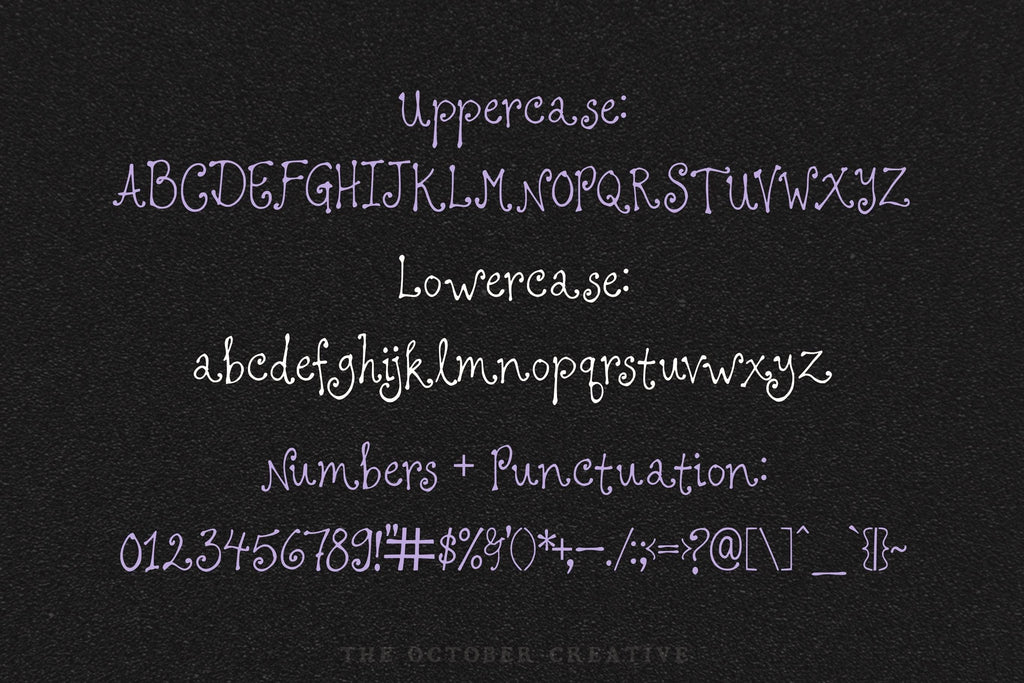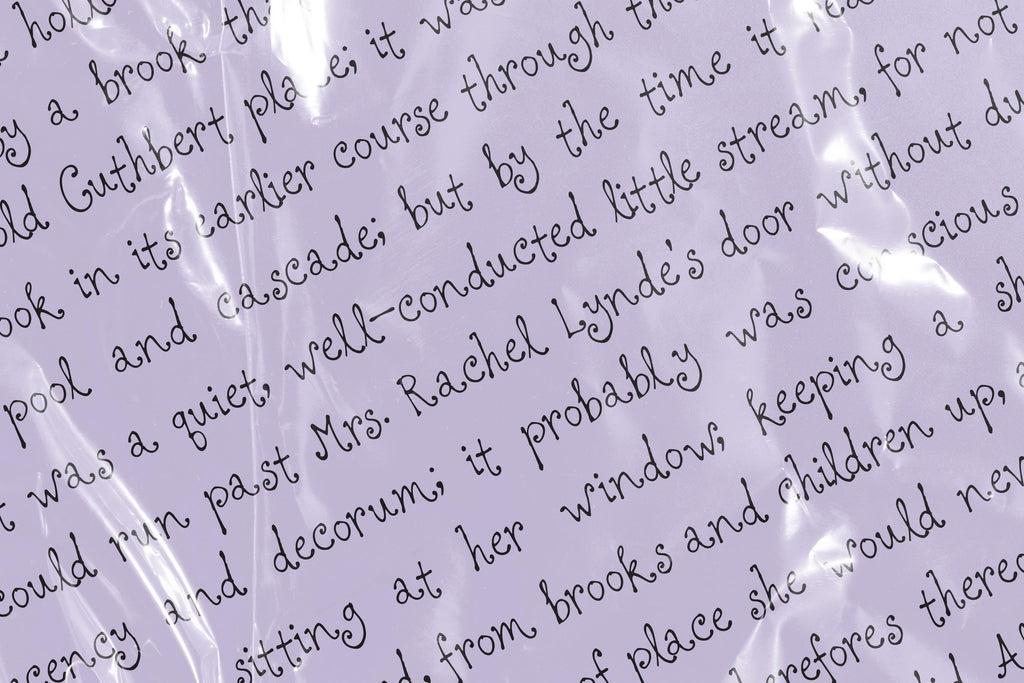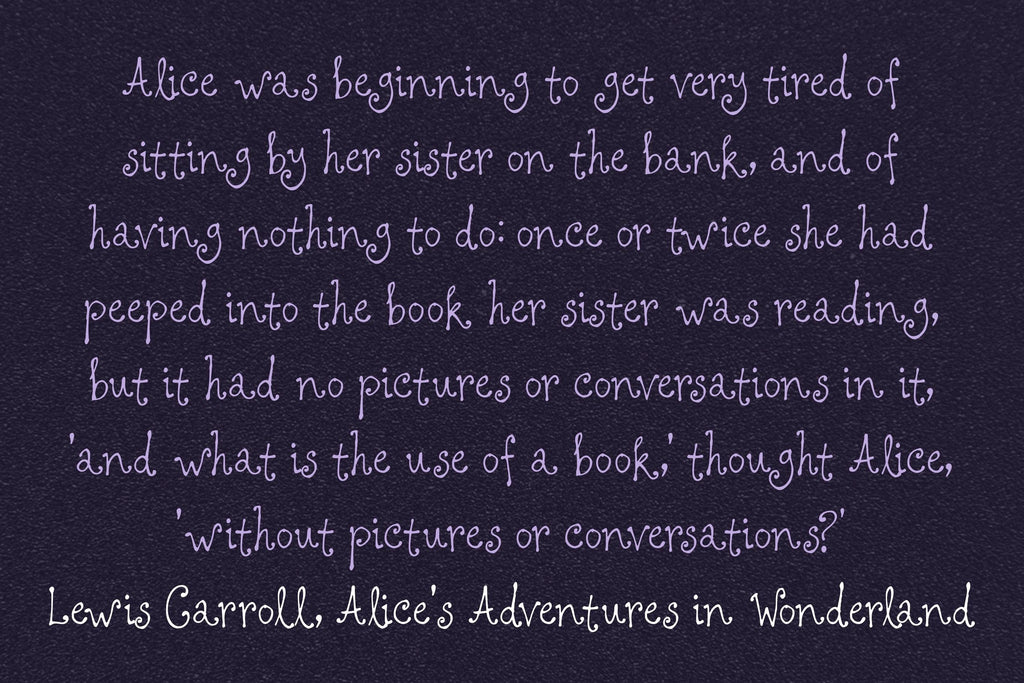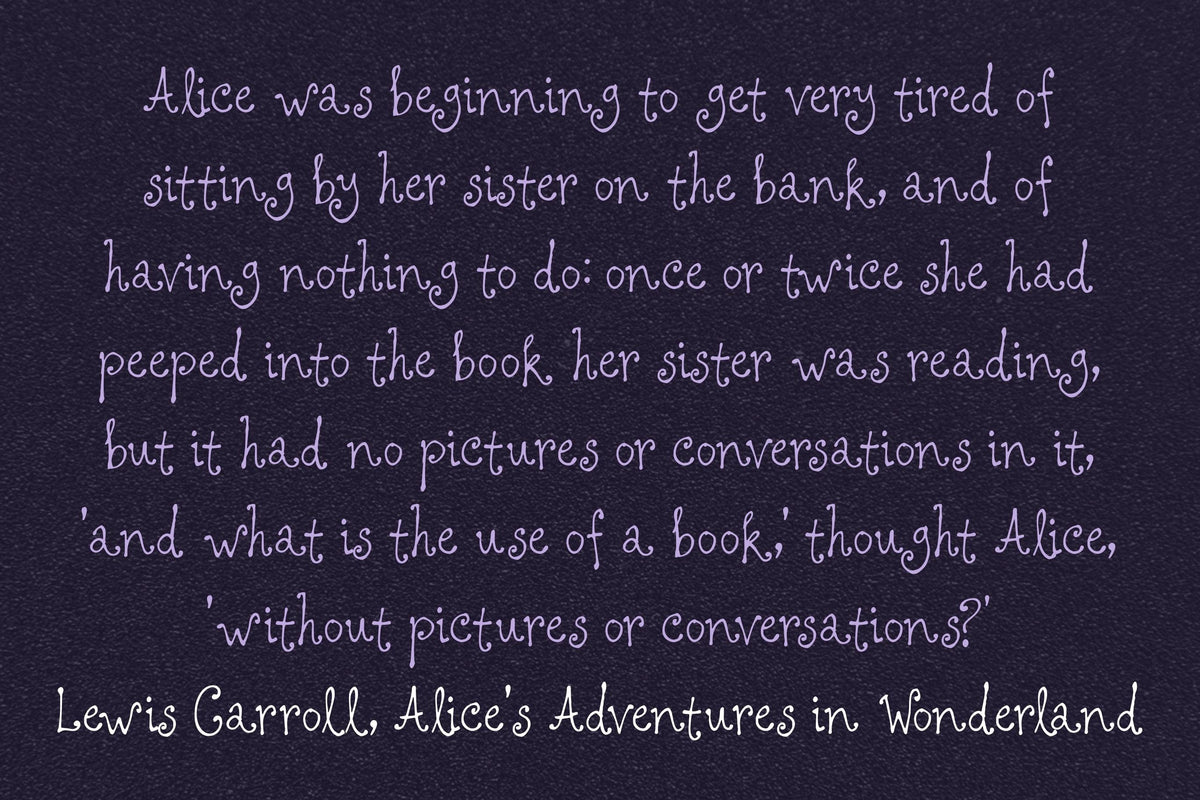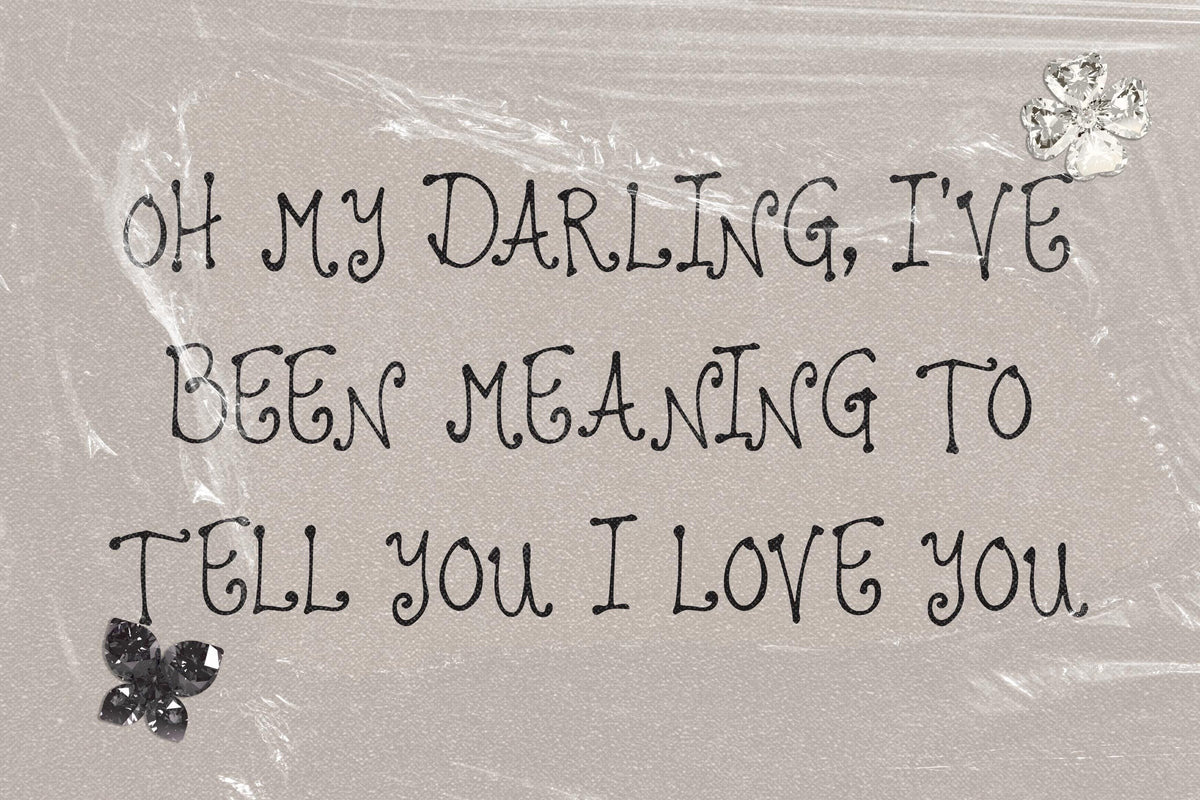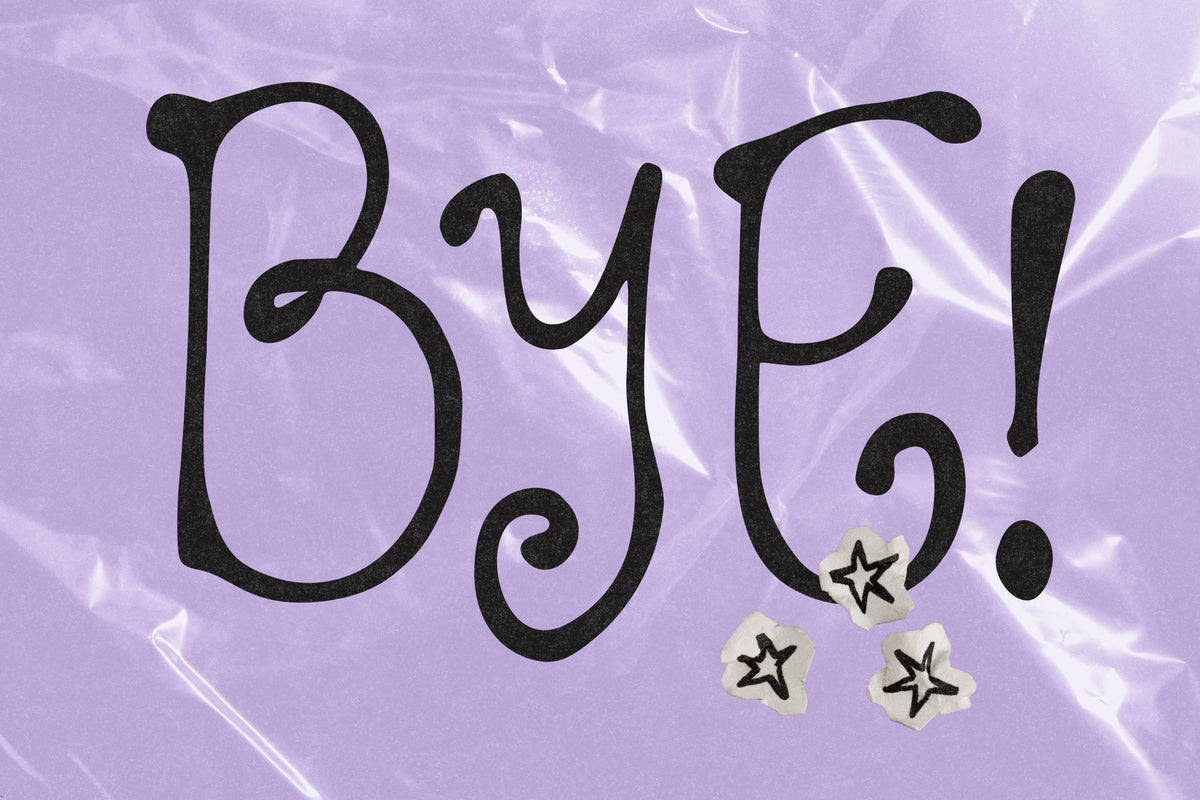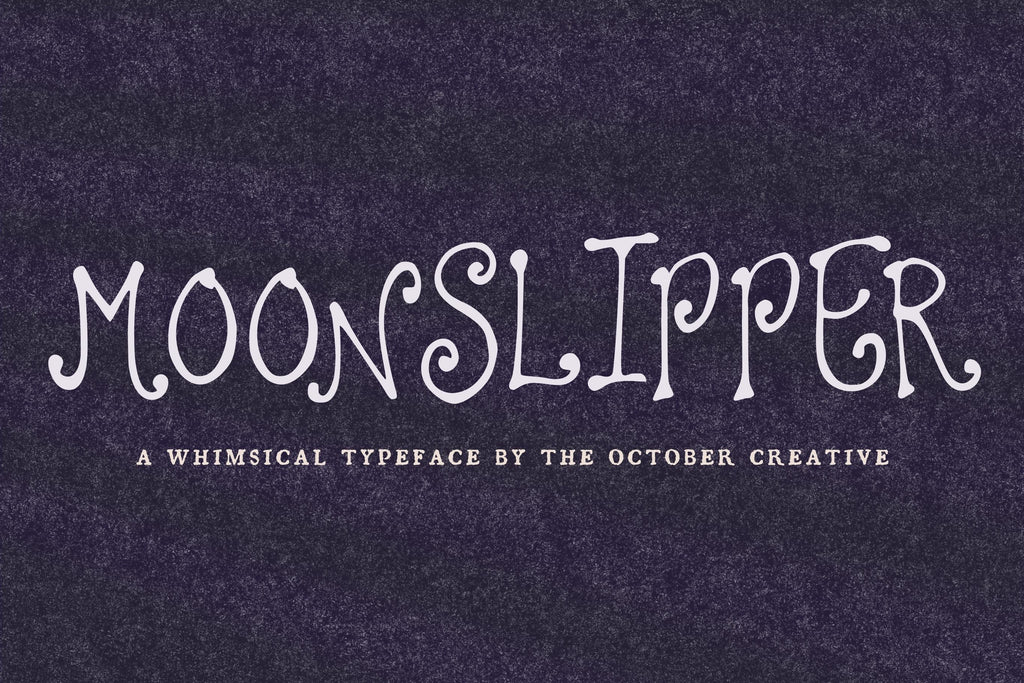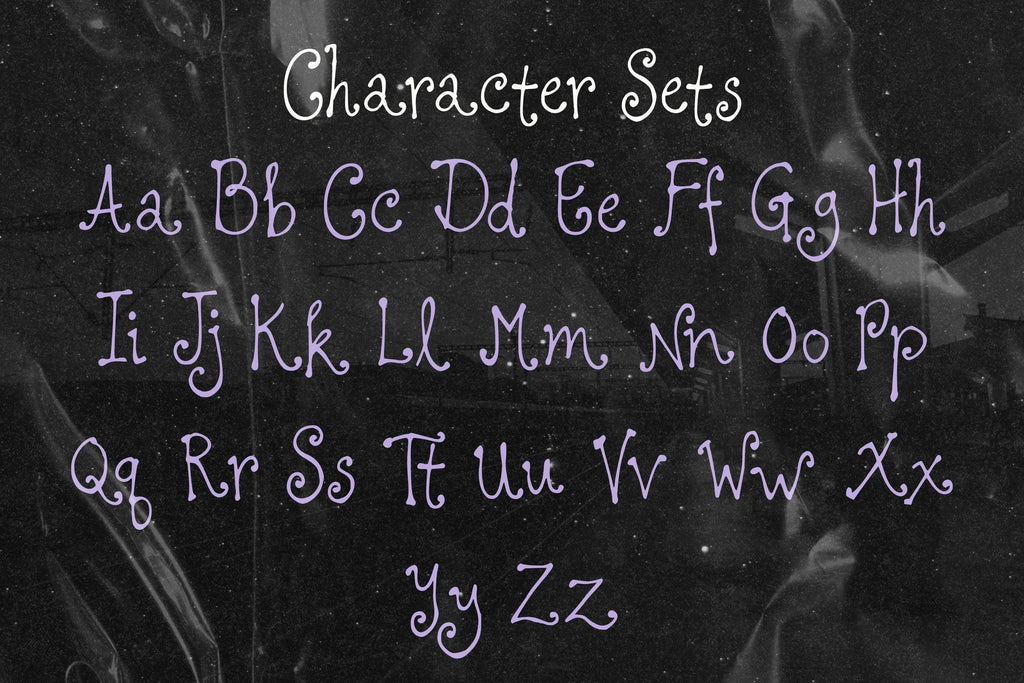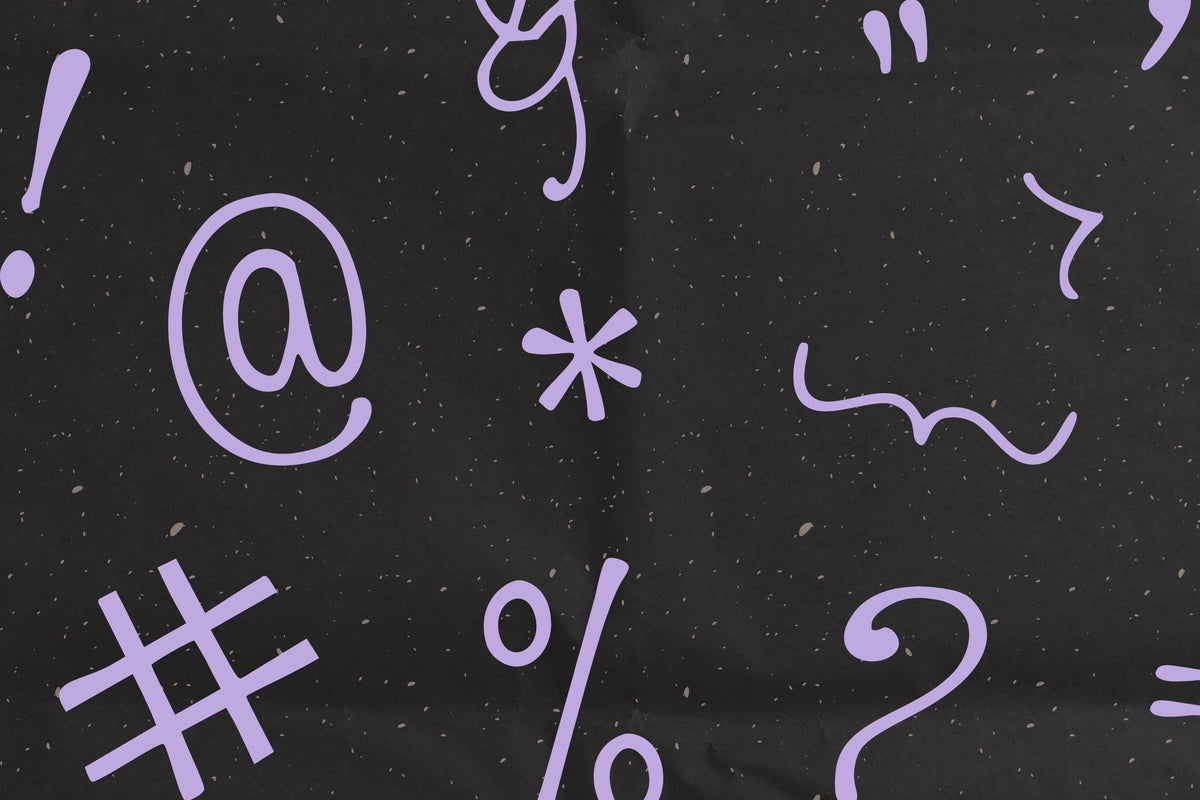
Moonslipper Font
Moonslipper is a curly handwritten print font with loose, loopy capitals and little curls at the ends of its letters. It has a witchy, sweet look that suits spell book pages, Halloween invitations, candy labels, and journal spreads.